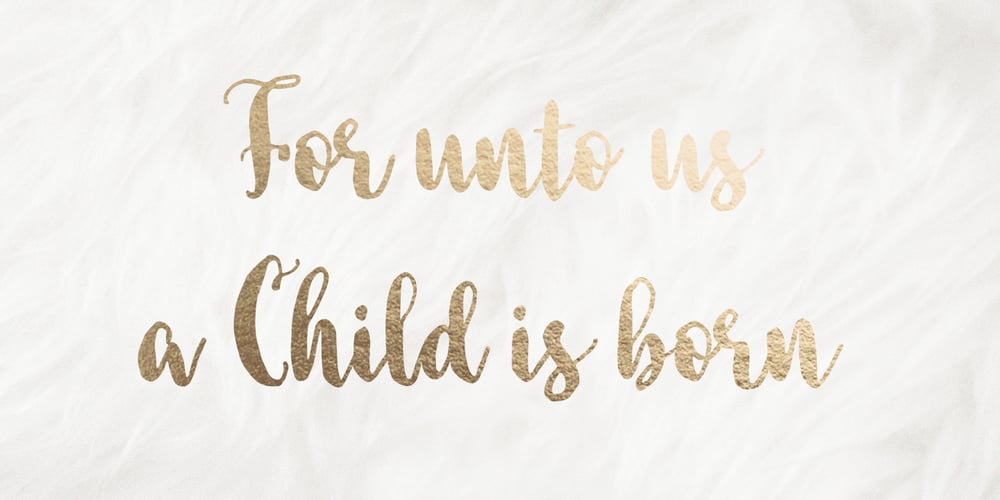
Lindore Font Family was designed by Irina Vascovet and published by Irina Vascovet. Lindore contains 1 styles and family package options. Lindore is a handwritten pointed pen calligraphy script that has a fun and whimsical personality. Perfect for posters, wedding invitations, and all of your favorite quotes! We would love to see how you use the font! Use #lindorefont to tag us on Instagram!